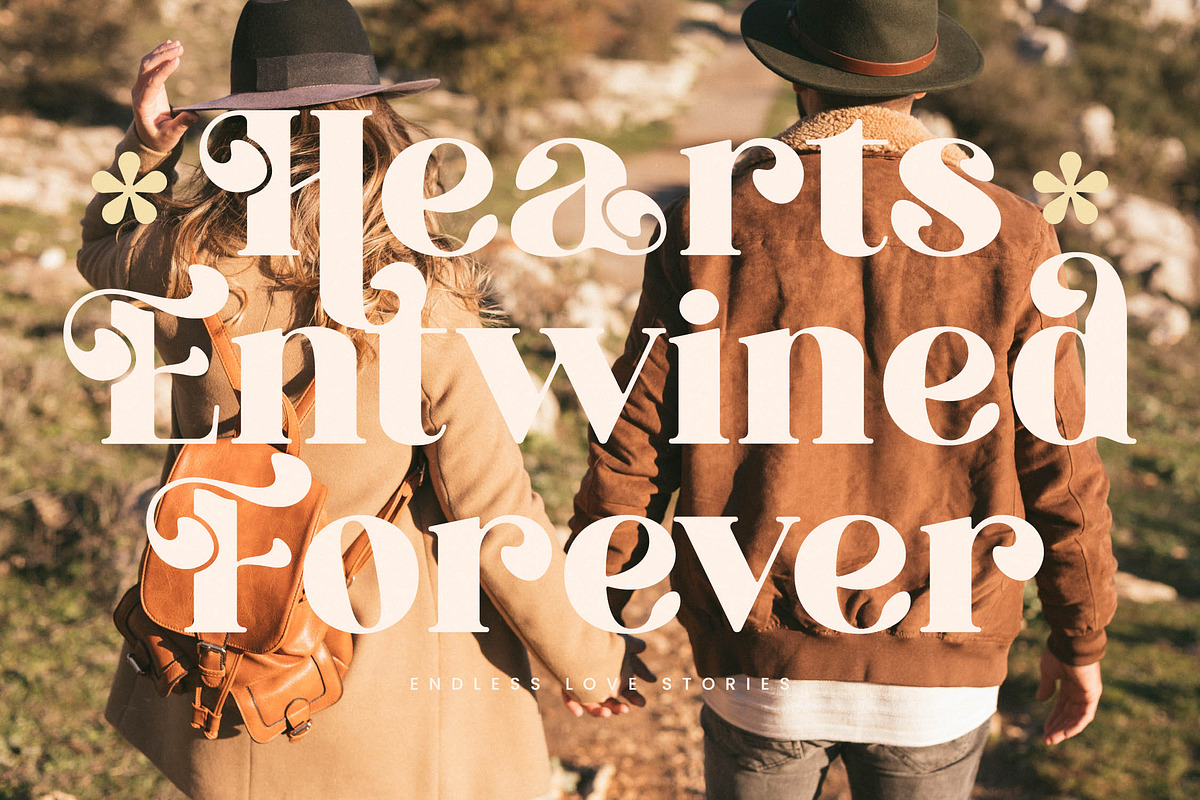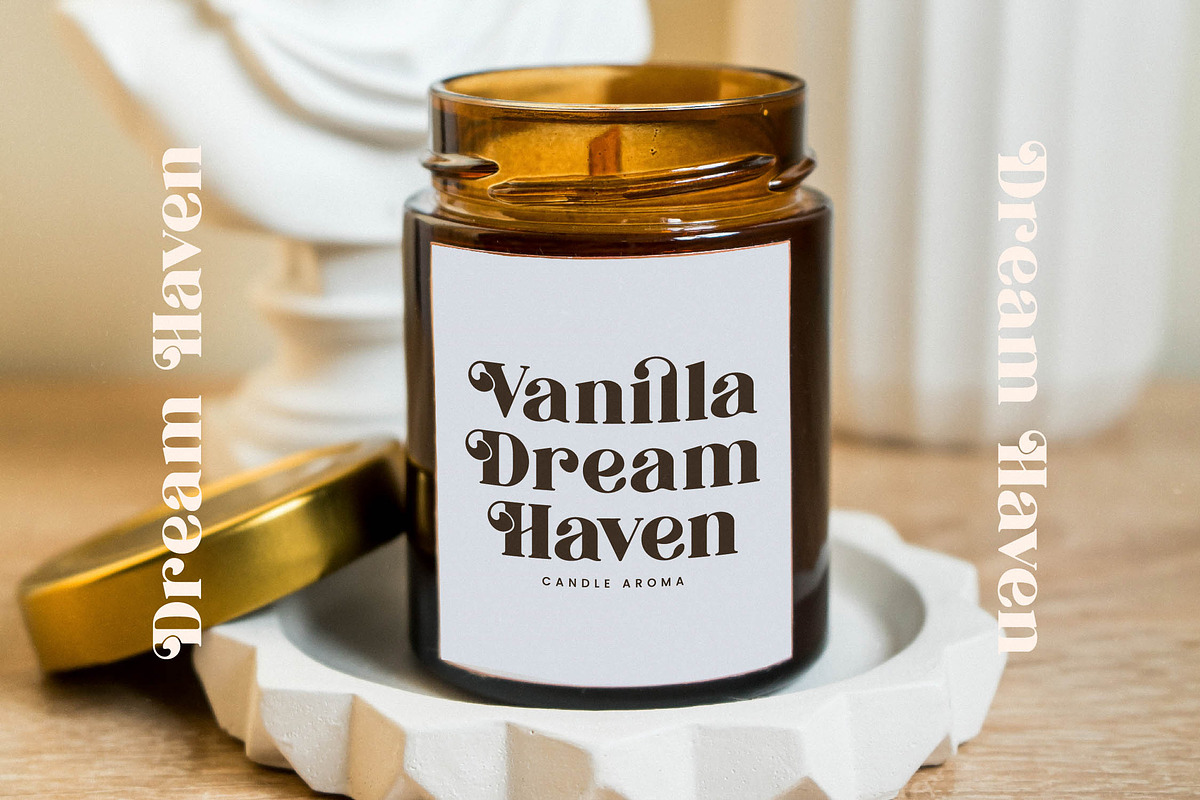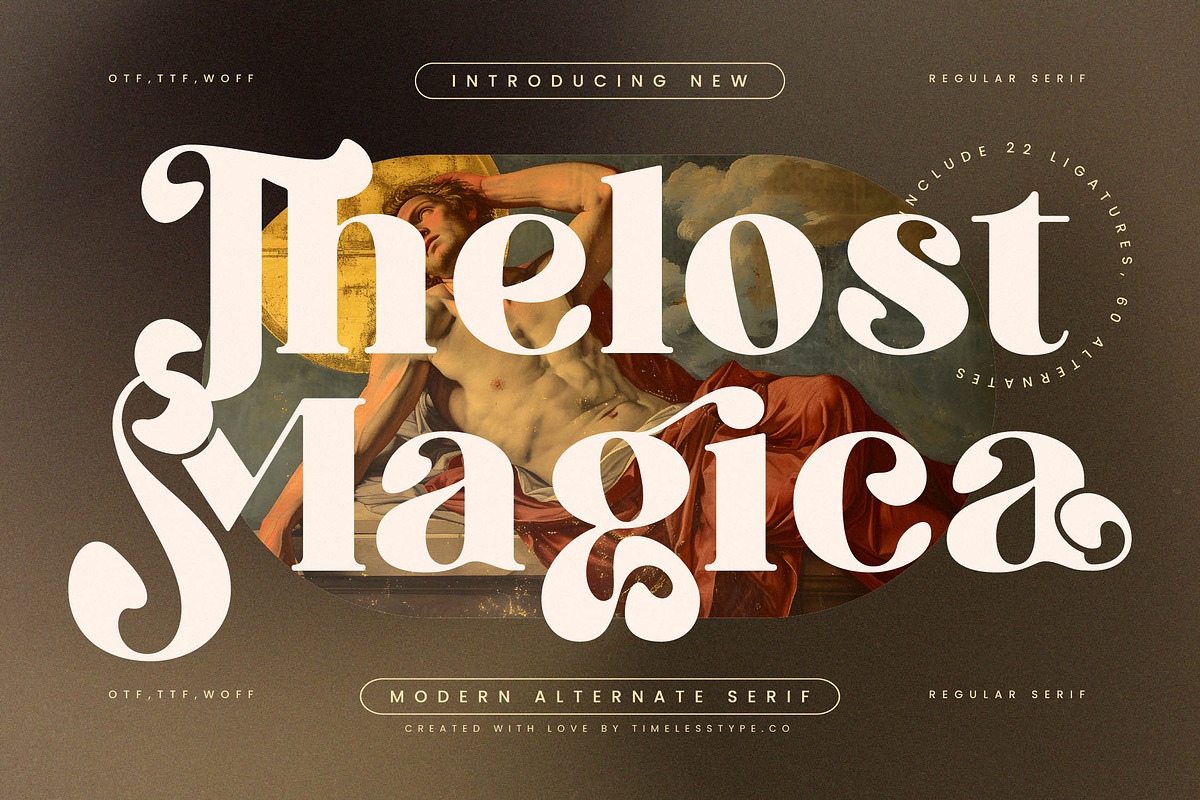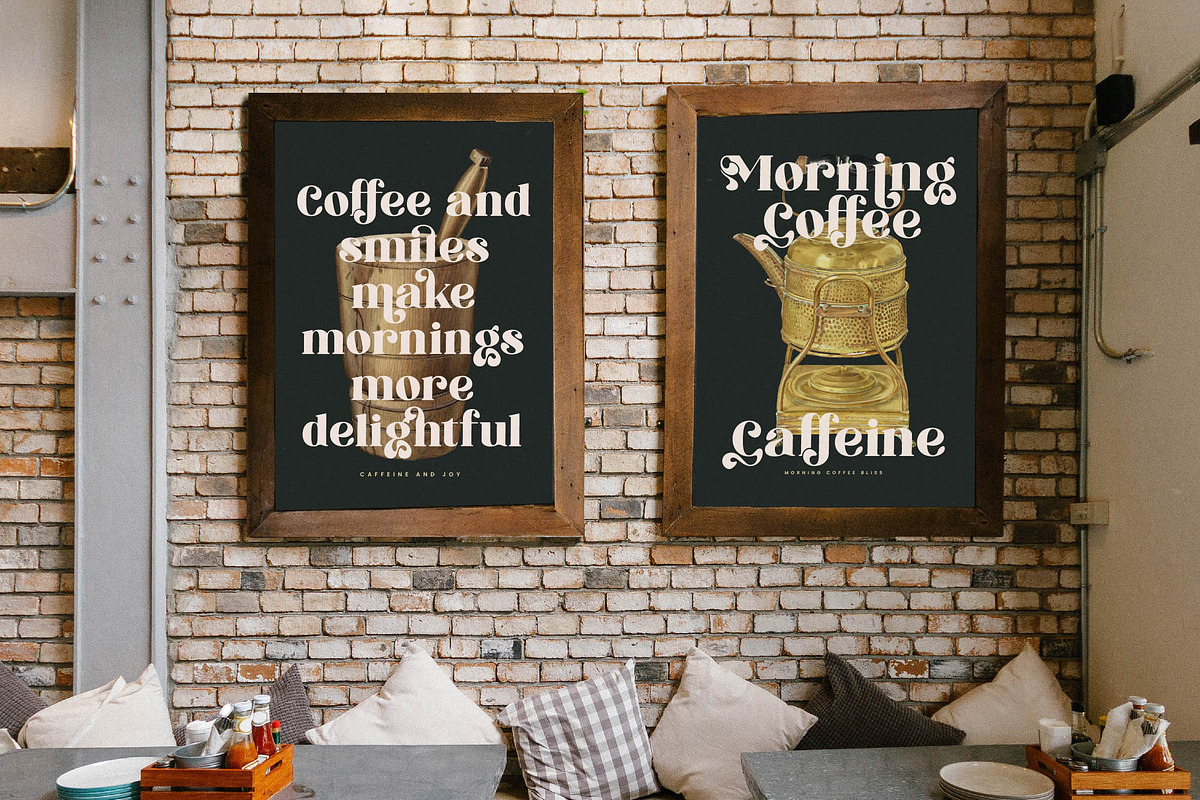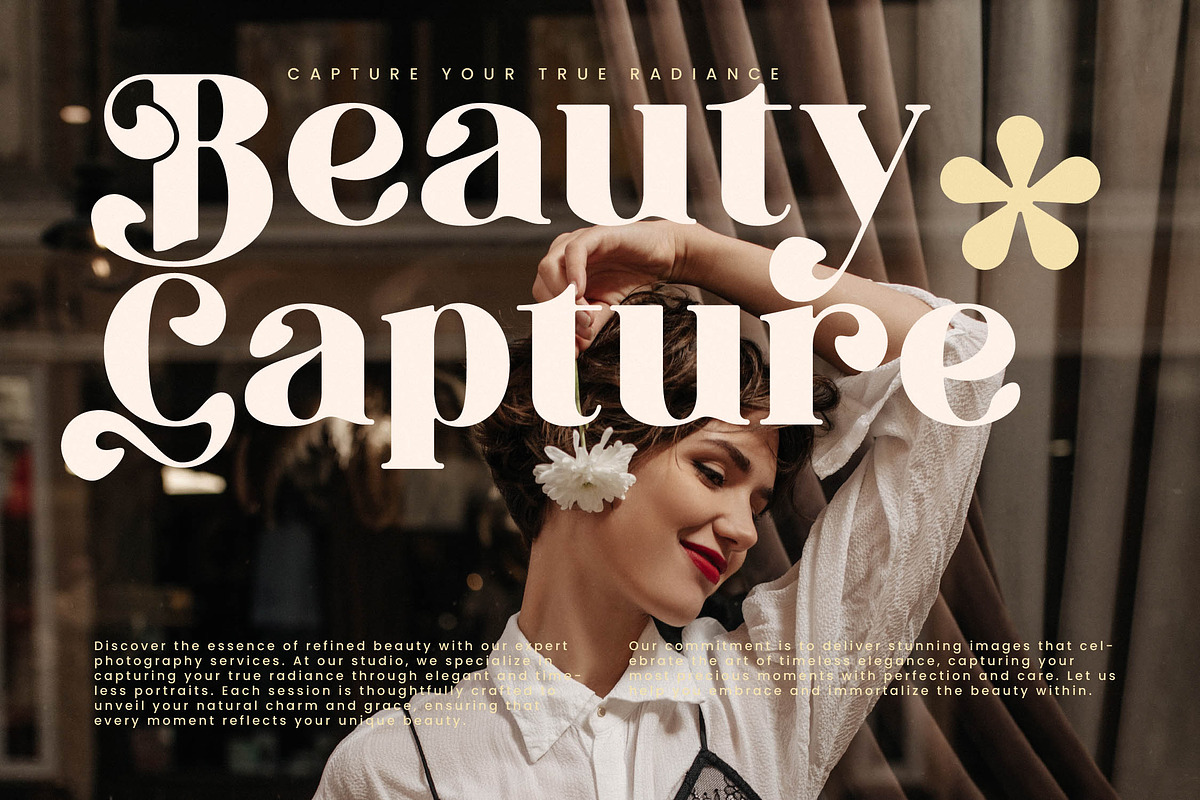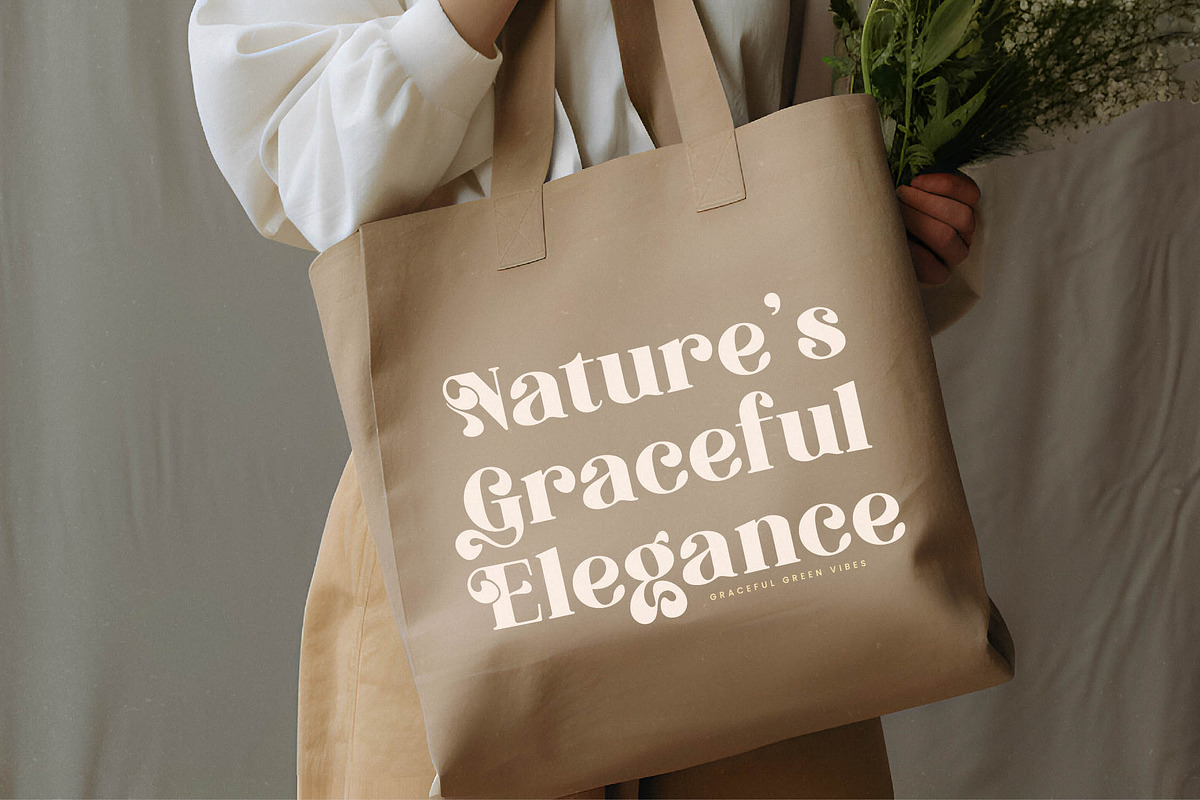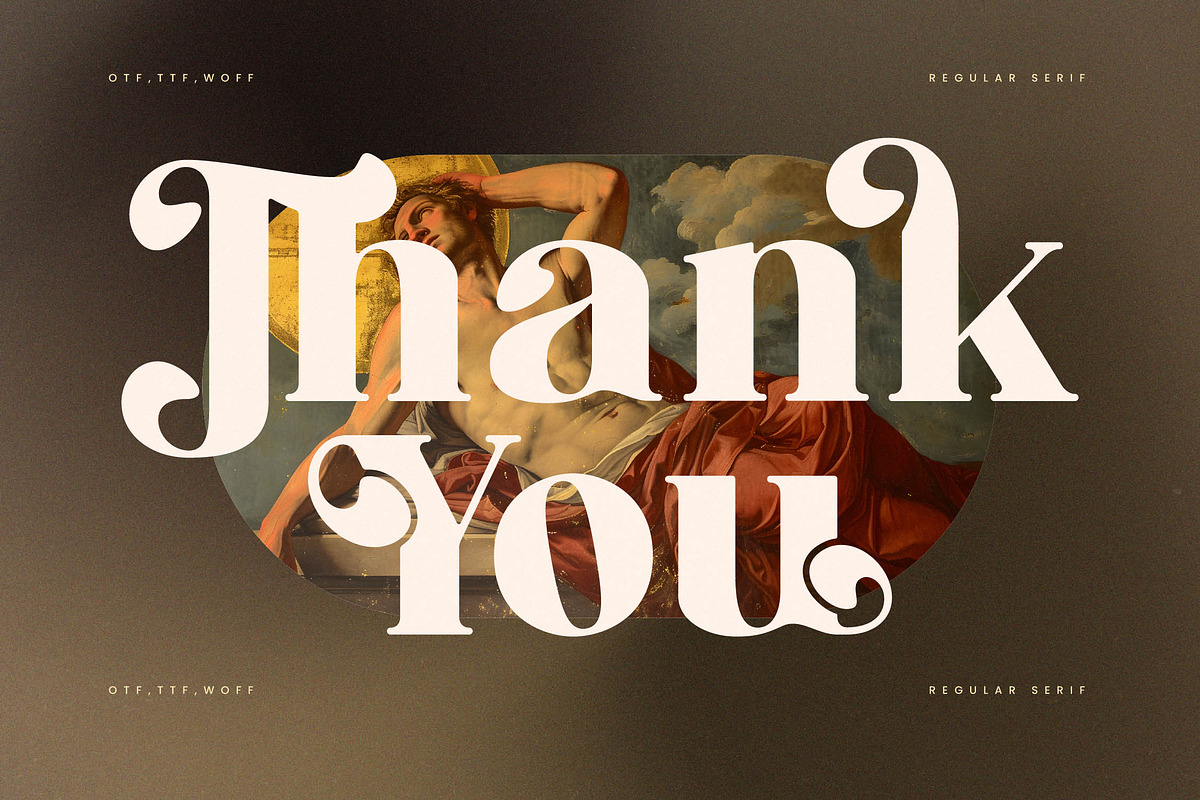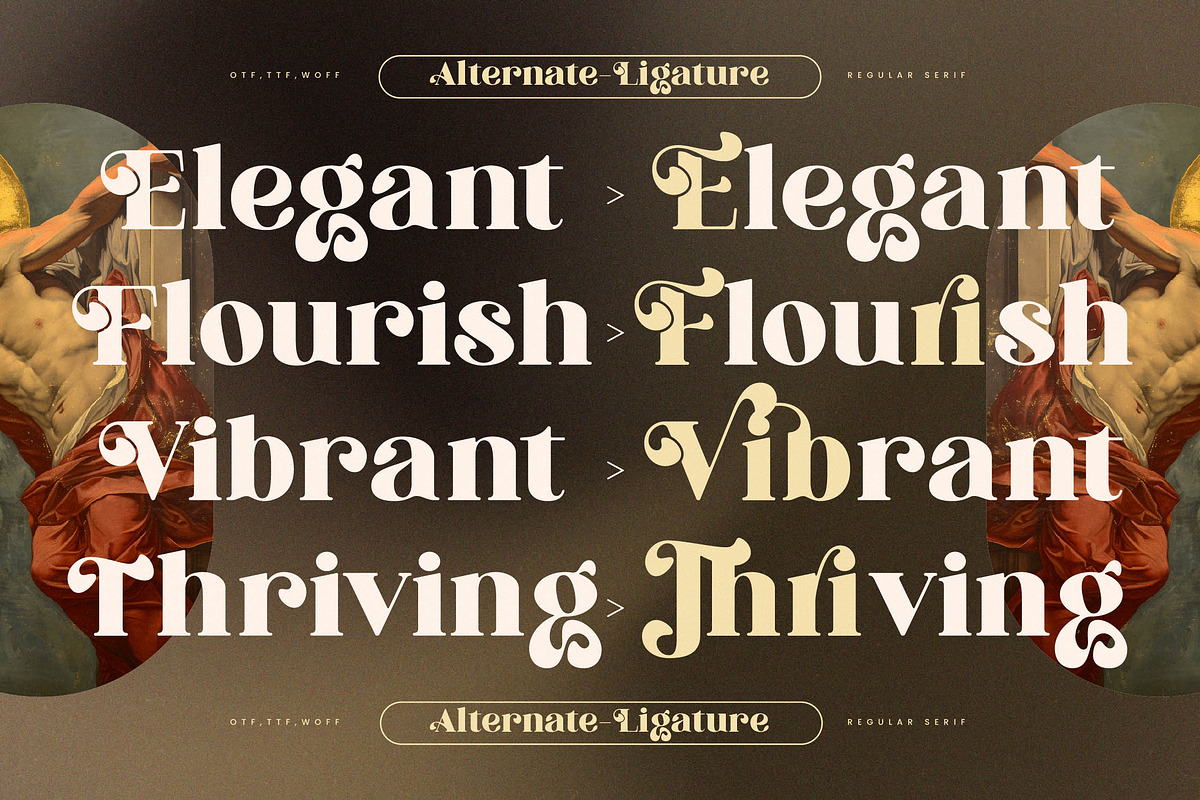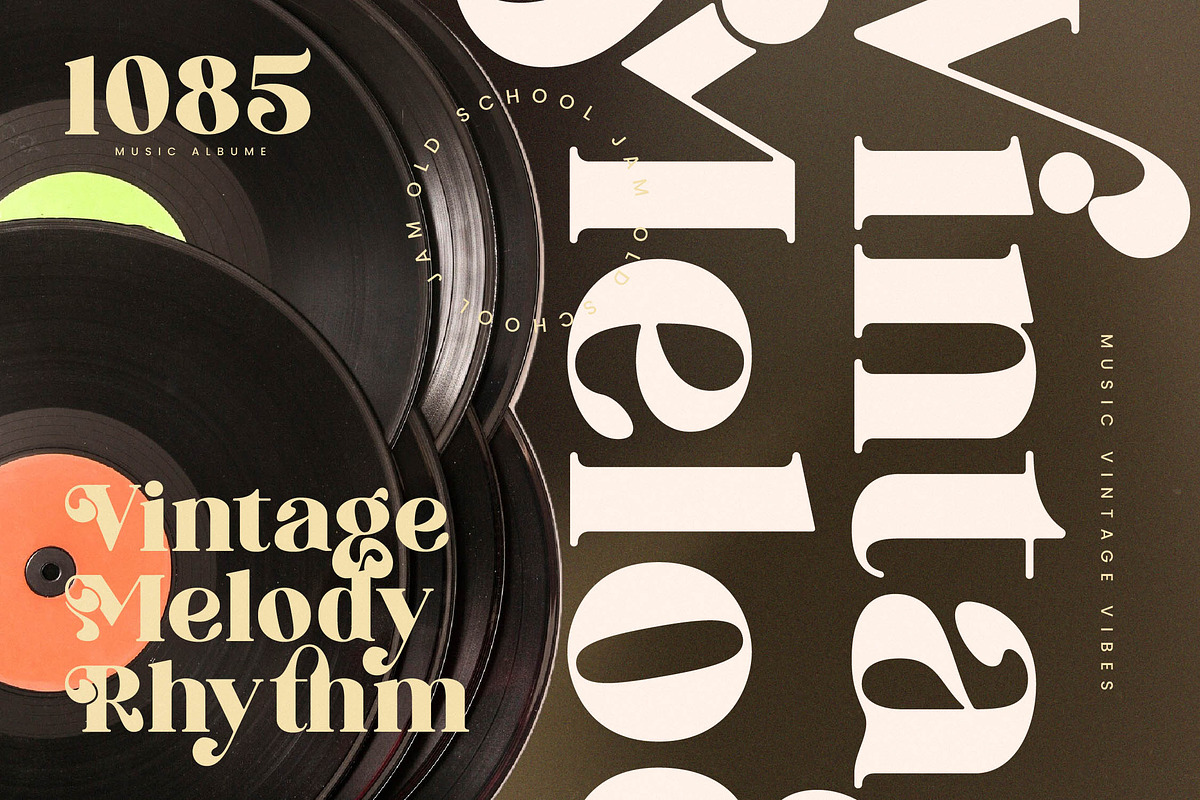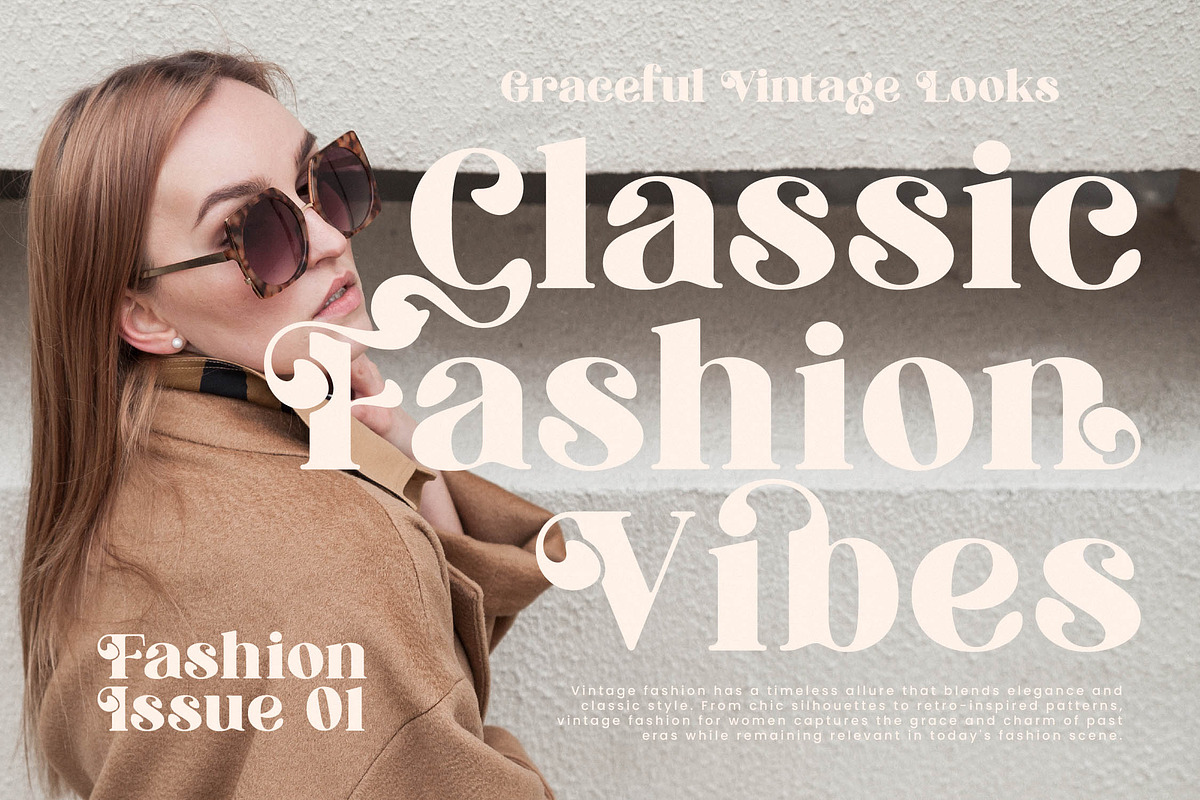
Thelost Magica Modern Serif
Thelost Magica - Modern Alternate Serif , from Timelesstype.Co , Step into a realm of timeless grace where every letter whispers a story of elegance. Thelost Magica is more than just a typeface; it is a visual journey through the soul of artistic expression.
Drawing inspiration from the dramatic beauty of Renaissance art and classical proportions, this font captures a sense of mystery and grandeur. It evokes an era where every detail was crafted with deliberate passion and poetic intent.
This modern serif display balances bold presence with delicate curves to create an unmatched luxury typography experience. Its high-contrast serif design ensures a powerful branding impact, making it a quintessential editorial font for those who demand sophistication.
Embracing the current modern serif trend, this typeface stands at the intersection of tradition and contemporary flair. It fulfills the growing demand for editorial display fonts and character-driven typography that breaks away from the mundane.
Perfect for elevating logo design projects or defining the visual identity of a premium branding campaign, this font shines in high-end editorial layouts. It adds a touch of class to luxury packaging, romantic wedding stationery, and avant-garde fashion magazines.
Unlock a world of creative possibilities with a rich collection of unique ligatures, alternates, and swashes. Supporting multilingual layouts and a full set of international characters, this font provides a seamless professional experience for global creative endeavors.
- Ligature 22 Alternate 60